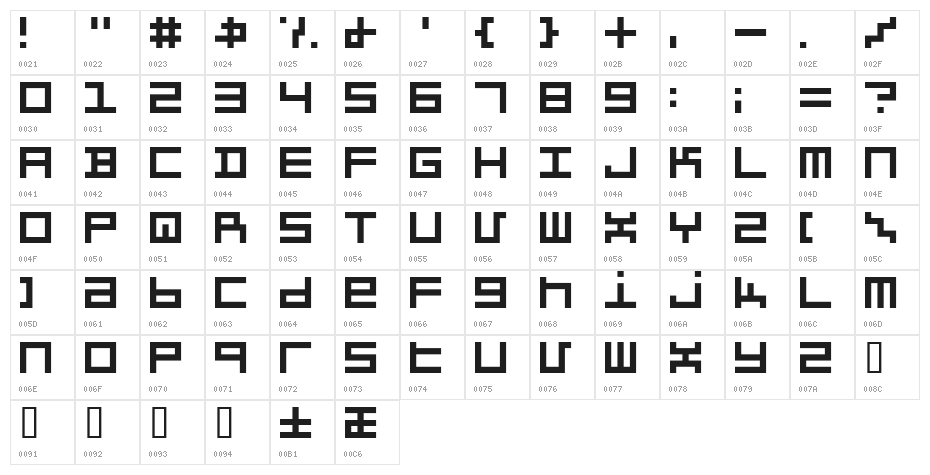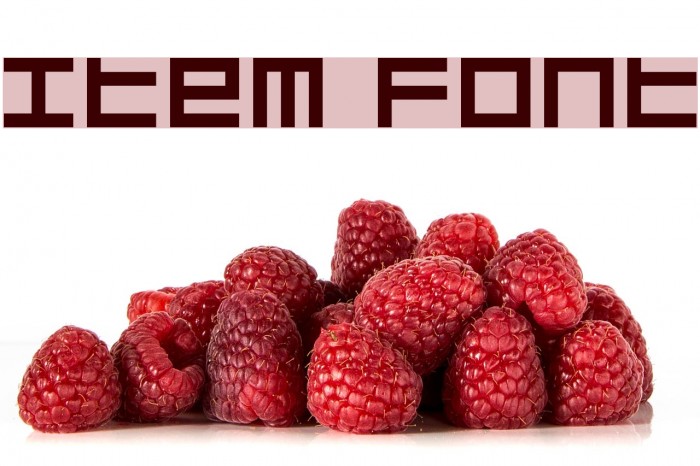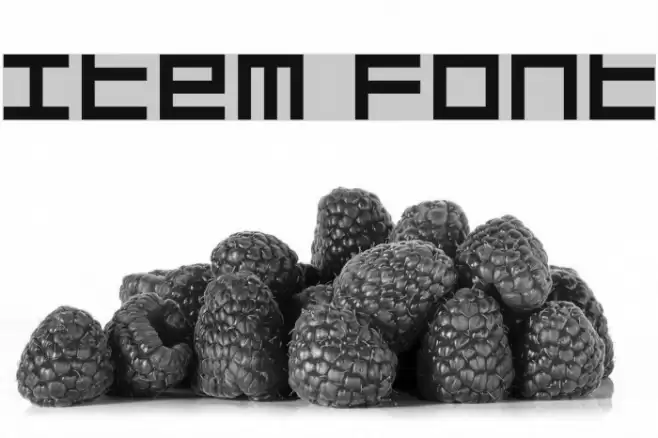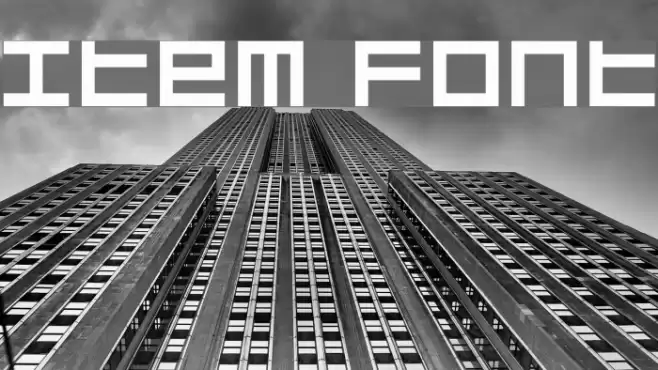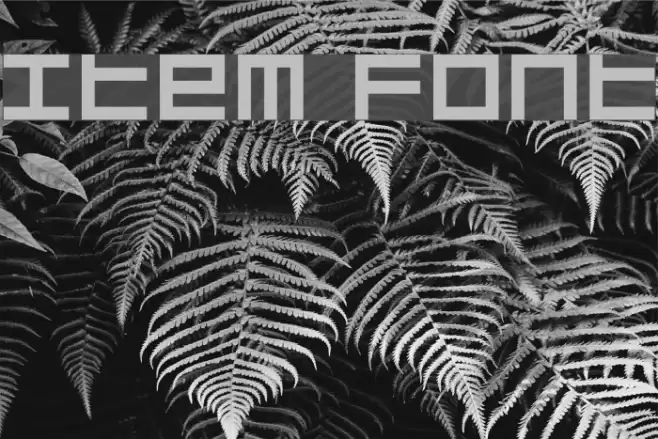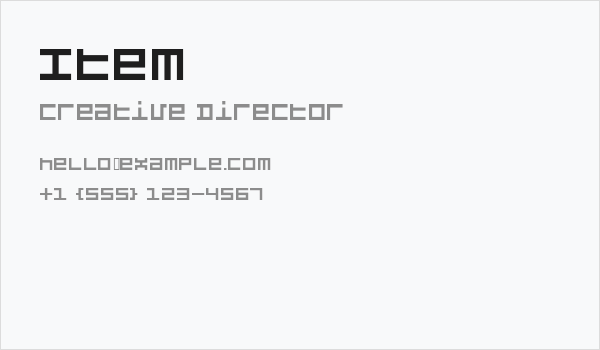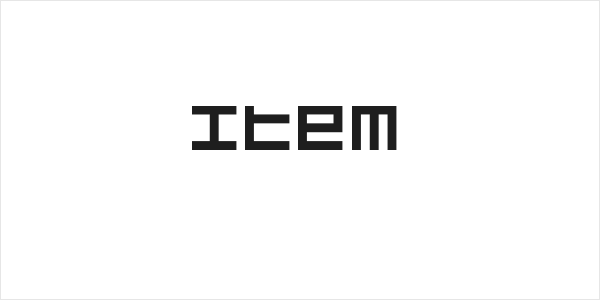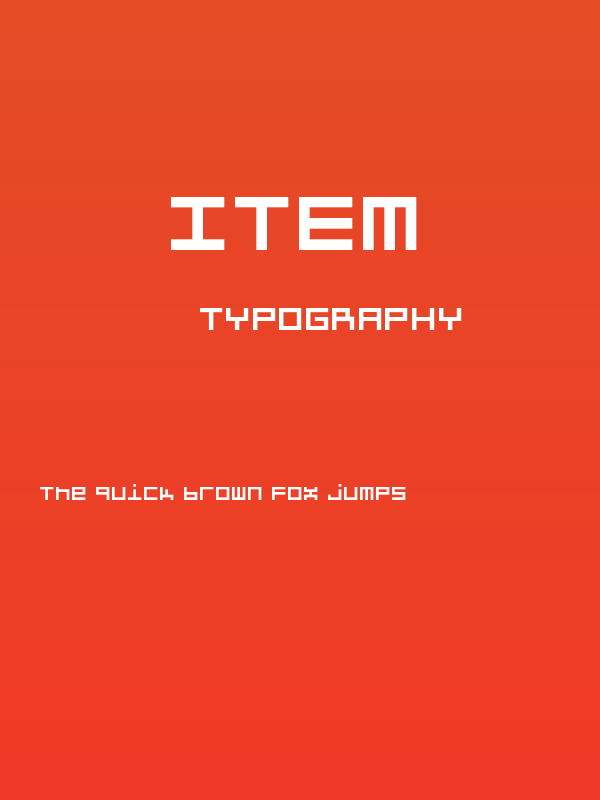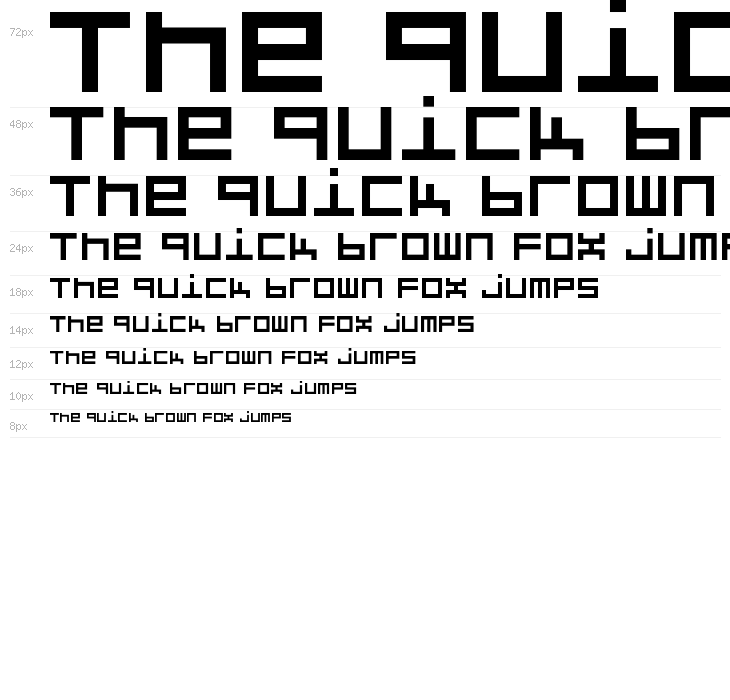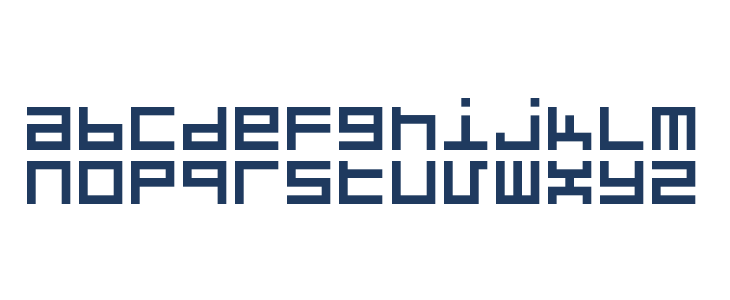
Item Font
Item Description
This font features a bold, geometric design with a distinctly modern and digital aesthetic. Each character is constructed with uniform line thickness, creating a cohesive and structured appearance. The angular shapes and sharp corners give it a futuristic feel, reminiscent of early digital displays or pixel art. The uppercase and lowercase letters maintain a consistent style, with the lowercase mirroring the uppercase in form and structure. Numbers and special characters follow the same design principles, ensuring a seamless integration across all text elements. The overall look is clean and minimalistic, making it suitable for projects that require a tech-savvy or contemporary vibe.
| Proposed Projects | Ideal for tech-related branding, digital interfaces, video game design, and futuristic-themed posters. |